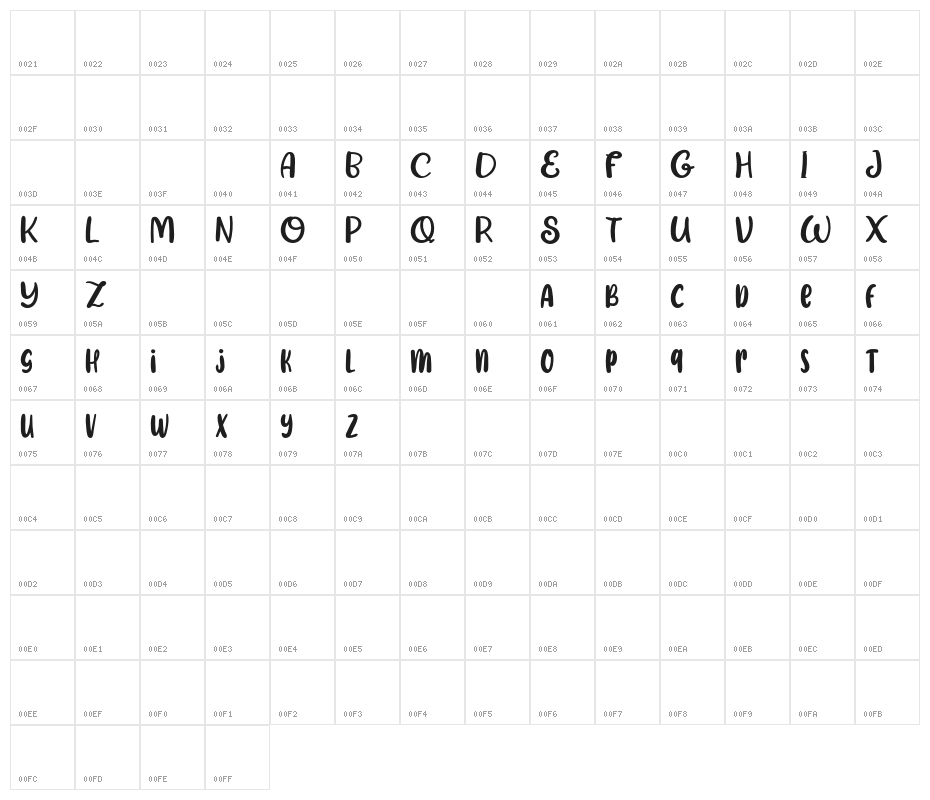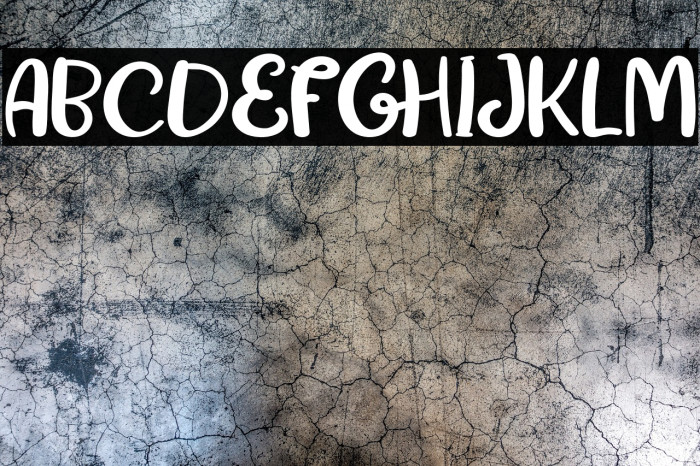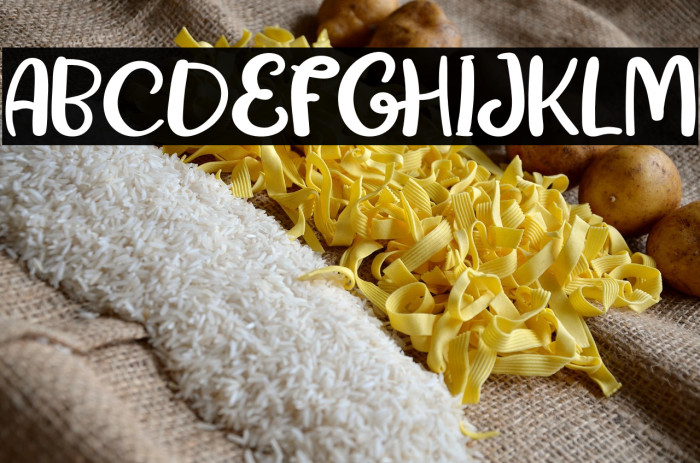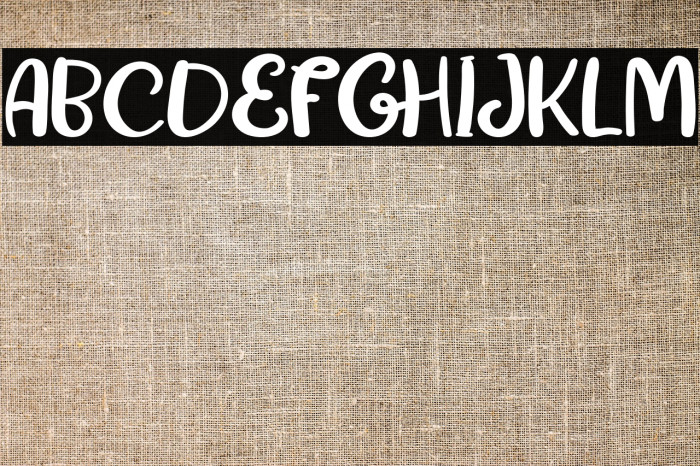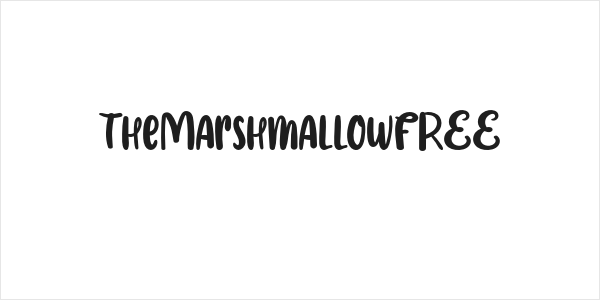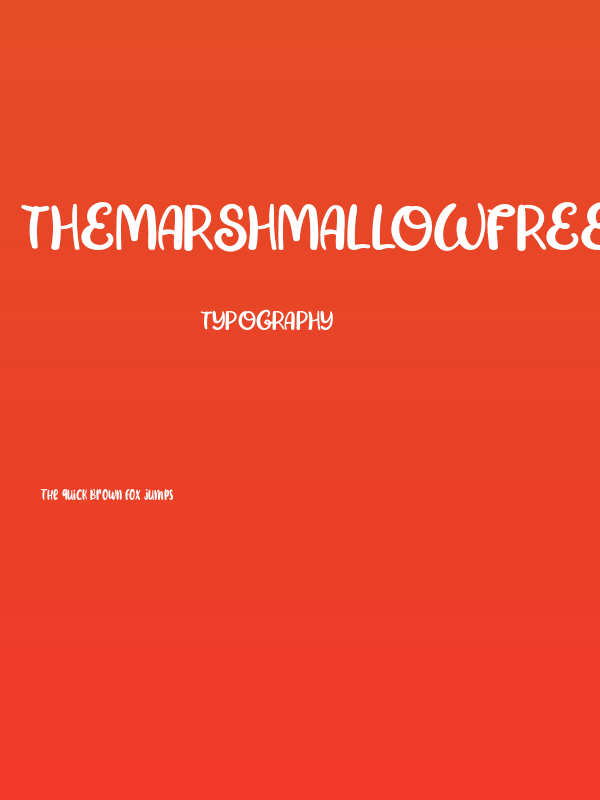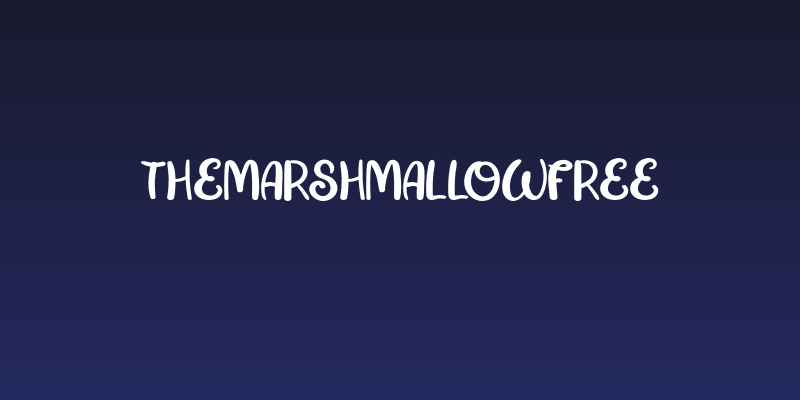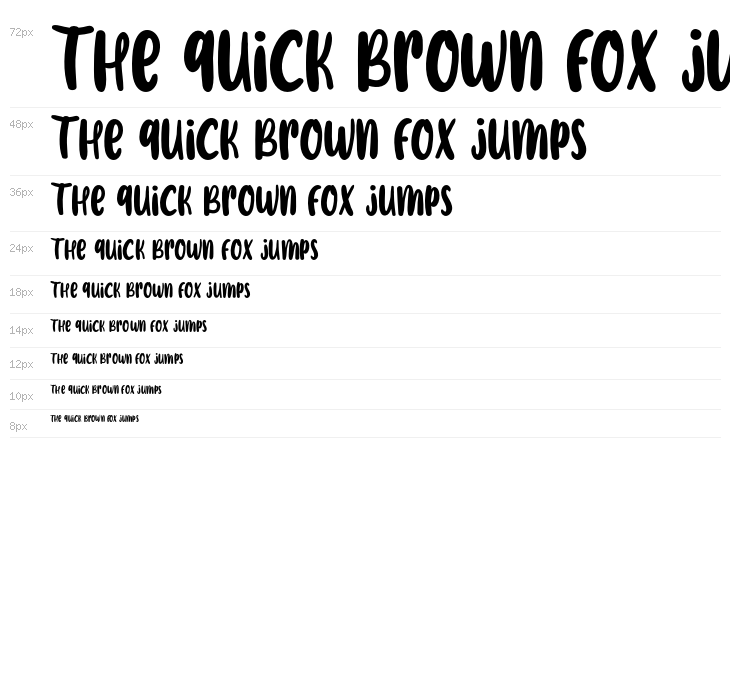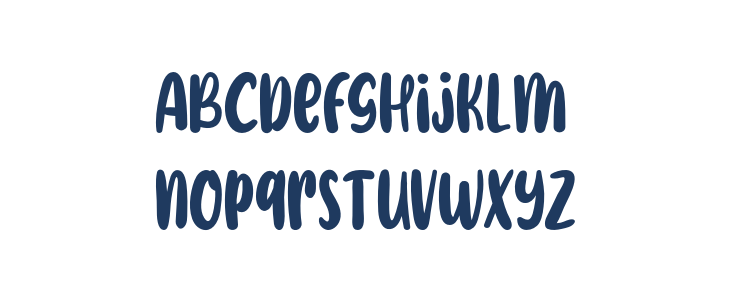
TheMarshmallowFREE Font
TheMarshmallowFREE Description
This playful and whimsical font features a bold, rounded style that exudes a sense of fun and creativity. The characters are crafted with a smooth, flowing design, giving them a handwritten appearance. The uppercase and lowercase letters maintain a consistent thickness, contributing to a cohesive look. The font's informal and friendly nature makes it ideal for projects that aim to convey a lighthearted or casual tone. Its unique character shapes and lively presence make it stand out, perfect for capturing attention in various design contexts.
| Proposed Projects | Ideal for children's books, greeting cards, playful branding, and social media graphics. |